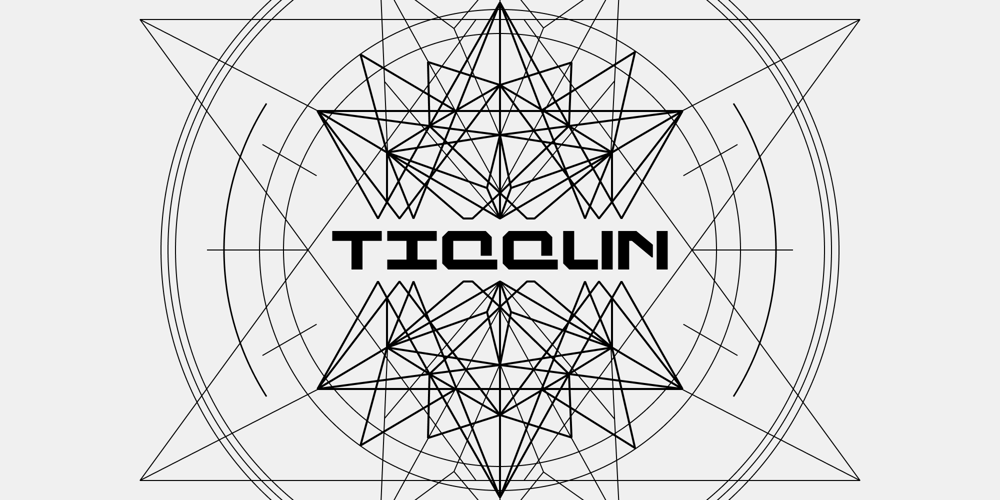
Tiqqun Font Family was designed by Eugene Bunin and published by Harvester Type. Tiqqun contains 1 styles and family package options. Tiqqun appeared as a font for a monumental, but at the same time futuristic design. During the creation process, many variations for each glyph came to mind. Therefore, it was decided to create an entire system of alternative options. As a result, we have more than 130 alternative characters and as many as two full-fledged alternative sets.The font contains monumentality, brutality, futurism, rigor and uniqueness of some forms. As a result, Tiqqun has become a font system that can cover a large range of your design needs: Prints on clothes, logo, packaging, banner, title, text, poster, merchandising, identity, branding or product design.- 360+ Glyphs- 130+ Alternative Glyphs- Supports 80+ Languages- Special Symbols and Features- 2 Full Alternative Set- OT Features: aalt, case, kern, ordn, salt, sups, ss01-09